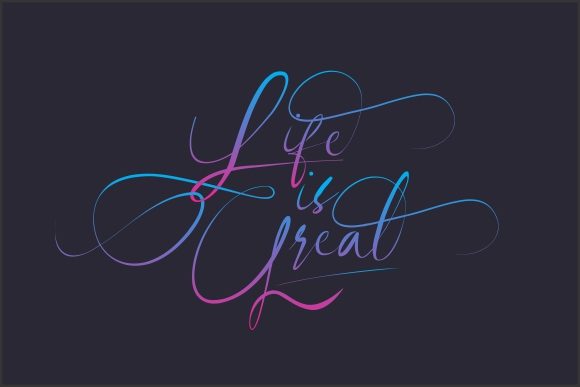
Introduction to Revalinda Font
The Revalinda is a natural handwritten look.
It has a charming look and is suitable for designs that require a feminine theme .
Key Features of Revalinda Font
Why Choose Revalinda Font?
Revalinda Font offers exceptional quality and versatility, making it a valuable addition to your design toolkit. Whether you’re creating for personal projects or commercial use, Revalinda Font delivers professional results.